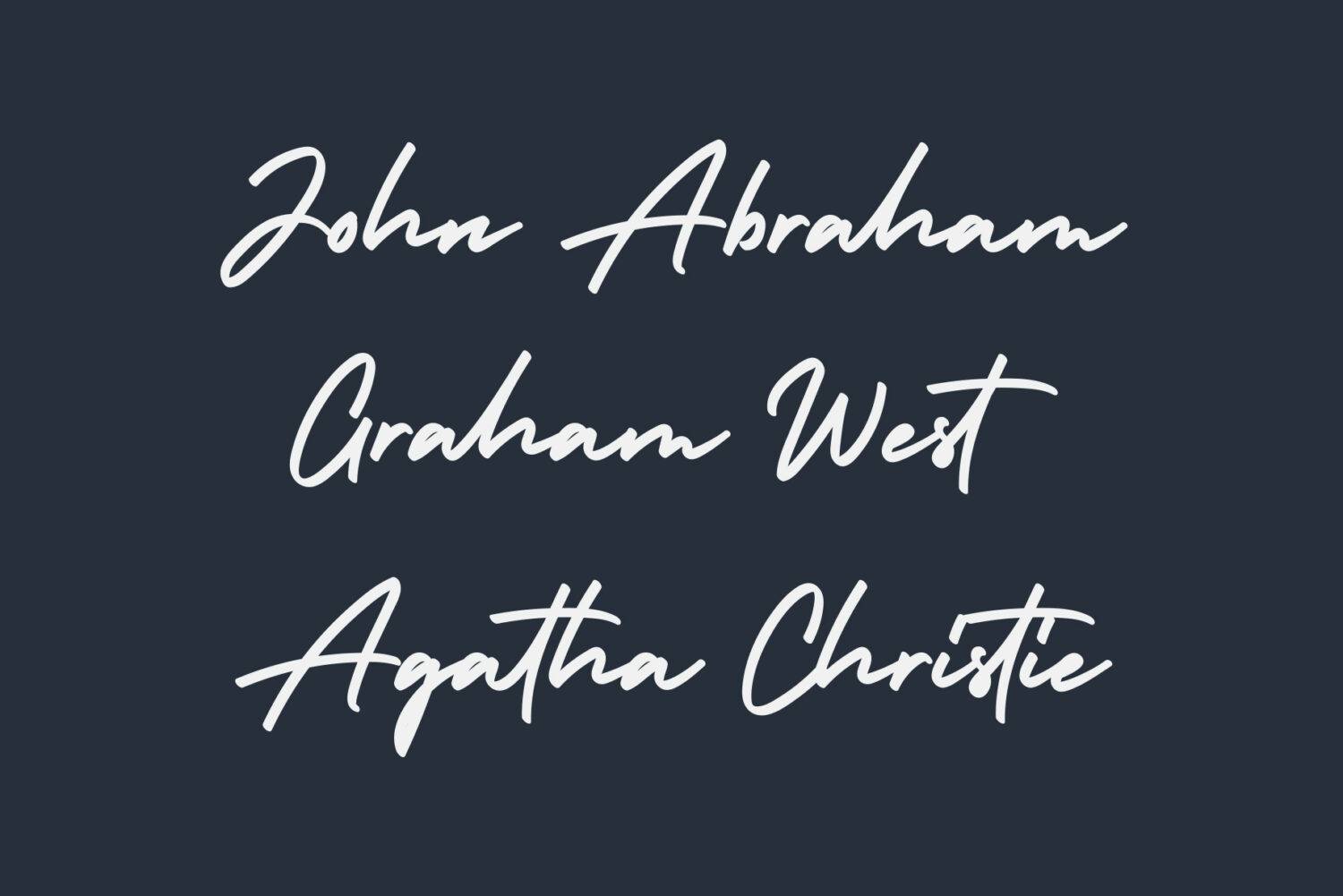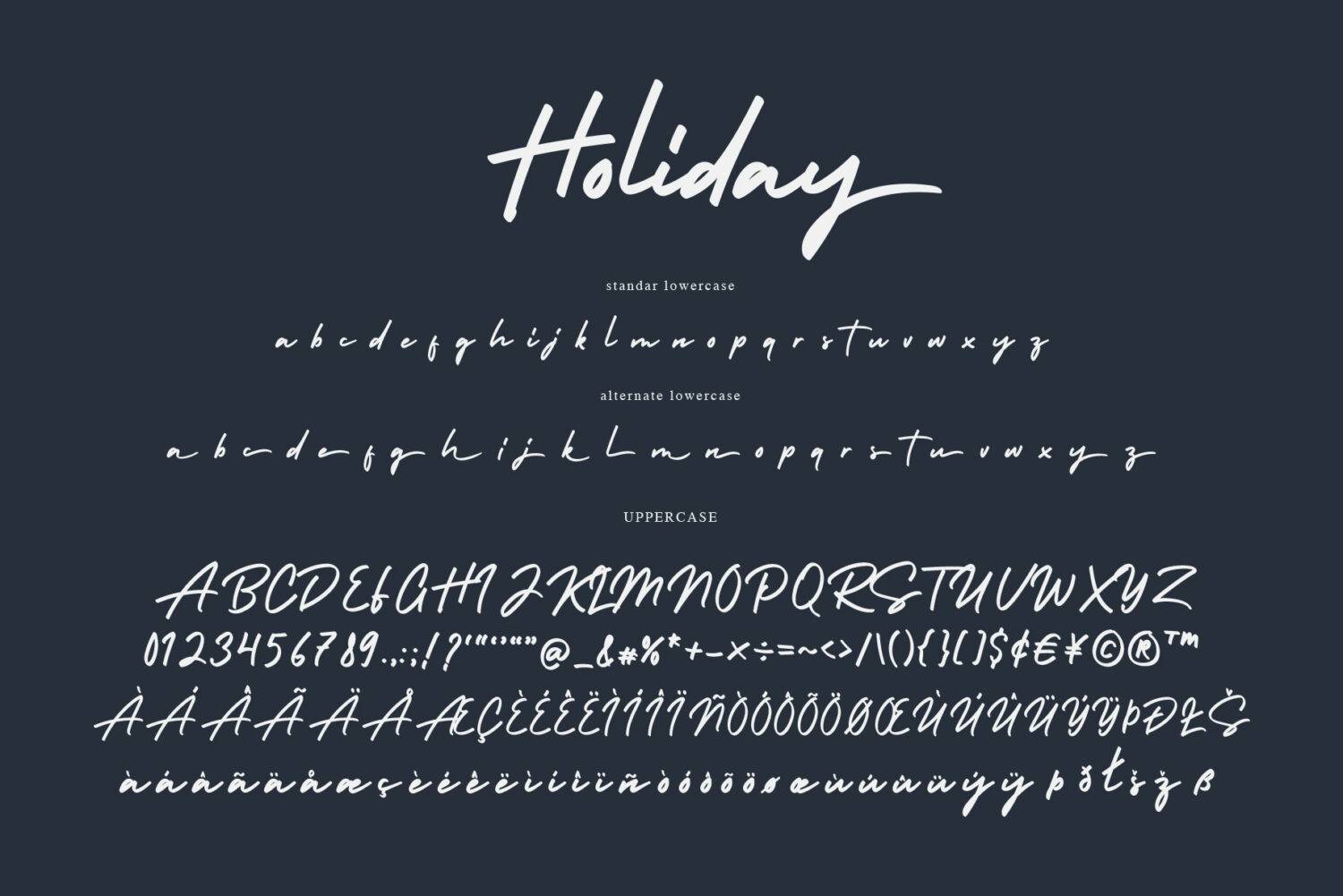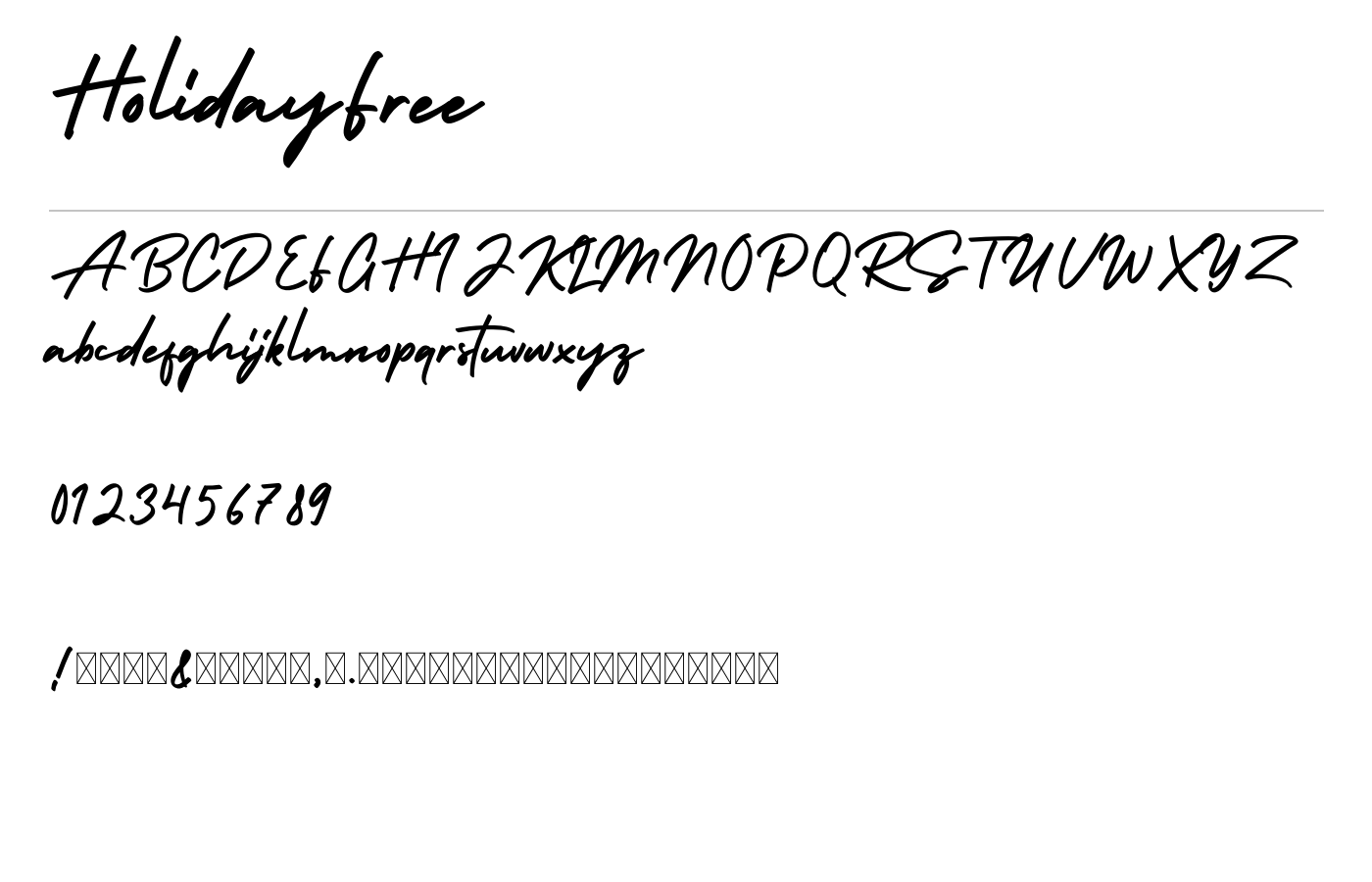
Holiday Font is a lively, handwritten script font with a natural, casual feel. Its smooth, flowing strokes and slightly varied weight give it an approachable yet elegant personality, making it perfect for invitations, branding, and creative projects that seek a personal, friendly touch. This font shines best in headlines or logos where a warm, handwritten style is desired.
Holiday Font
About Holiday Font